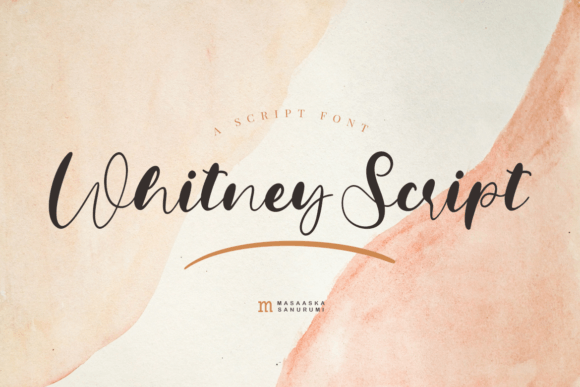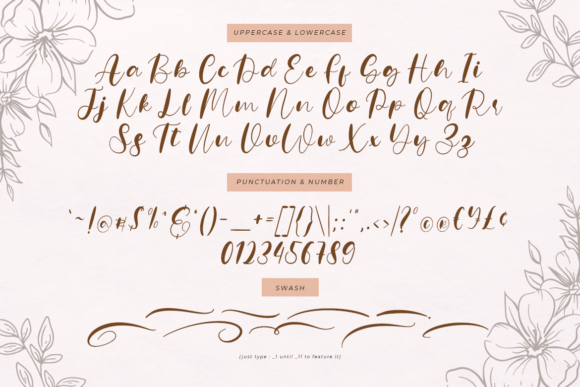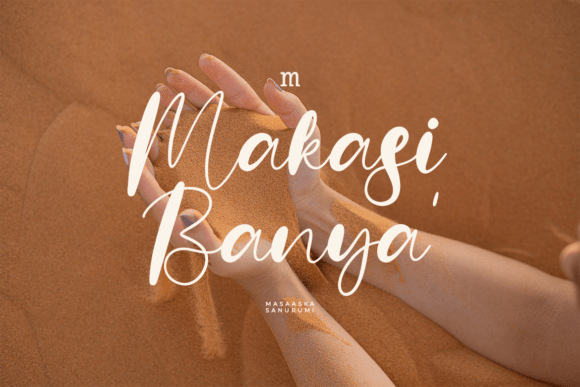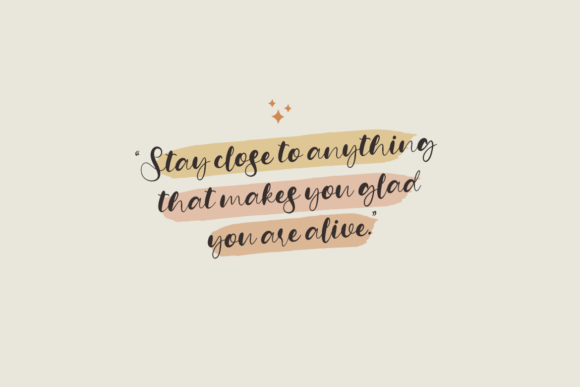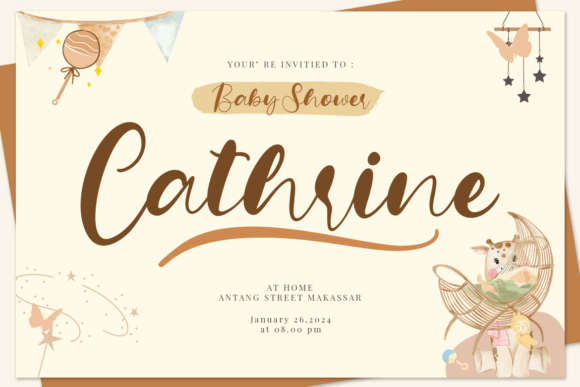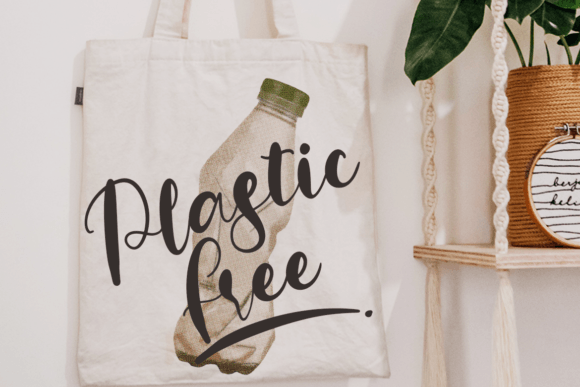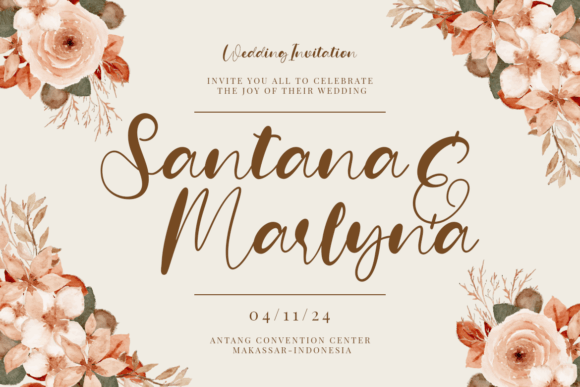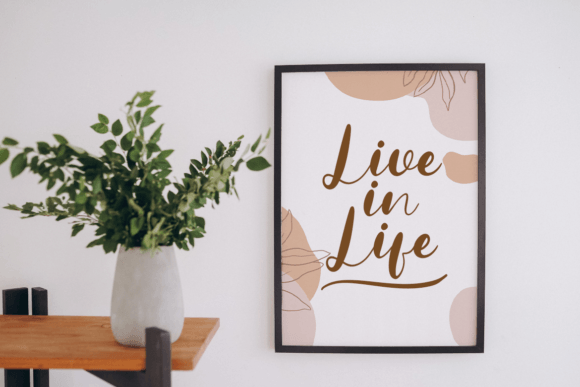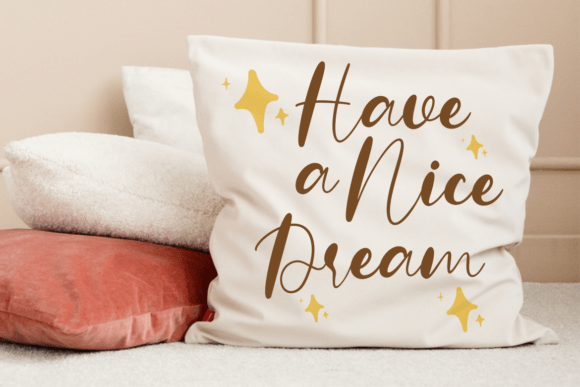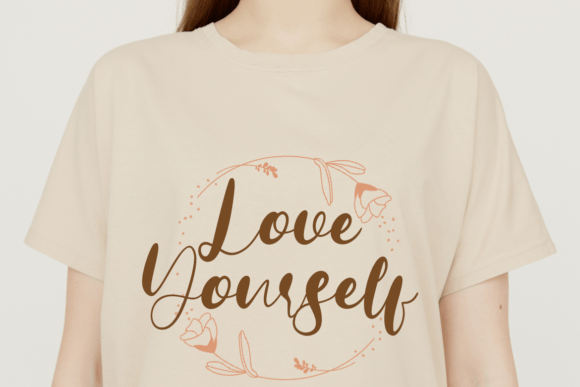
Whitney Script Font
Elevate Your Designs with Whitney Script Font
Whitney Script Font is a beautiful and modern handwritten script that combines simplicity with style. Designed to bring elegance and clarity to your creative projects, this font is perfect for a wide range of applications. Whether you are crafting Instagram posts, DIY calligraphy projects, or branding materials, Whitney Script Font transforms your ideas into stunning works of art.
Its clean lines and balanced letterforms make it easy to read while maintaining an artistic, handcrafted feel.
Versatile Applications for Whitney Script Font
Whitney ScriptFont works wonderfully across many design projects, such as:
• Social media graphics and Instagram posts
• DIY projects and handmade crafts
• Wedding and event invitations
• Logos and branding materials
• Greeting cards and stationery
• Posters, flyers, and promotional content
Its modern yet simple script style adds sophistication and personality to your designs.
With balanced kerning and clear spacing, Whitney ScriptFont ensures readability and visual appeal across various sizes and media.
Why Designers Choose Whitney Script Font
Designers and creatives appreciate Whitney ScriptFont for its elegant simplicity and modern flair. It adds a polished, personal touch to projects while remaining highly versatile. Whether you’re a professional designer or a creative hobbyist, this font helps you produce beautiful, memorable typography.
Use Whitney ScriptFont to bring style and grace to your next creative project.